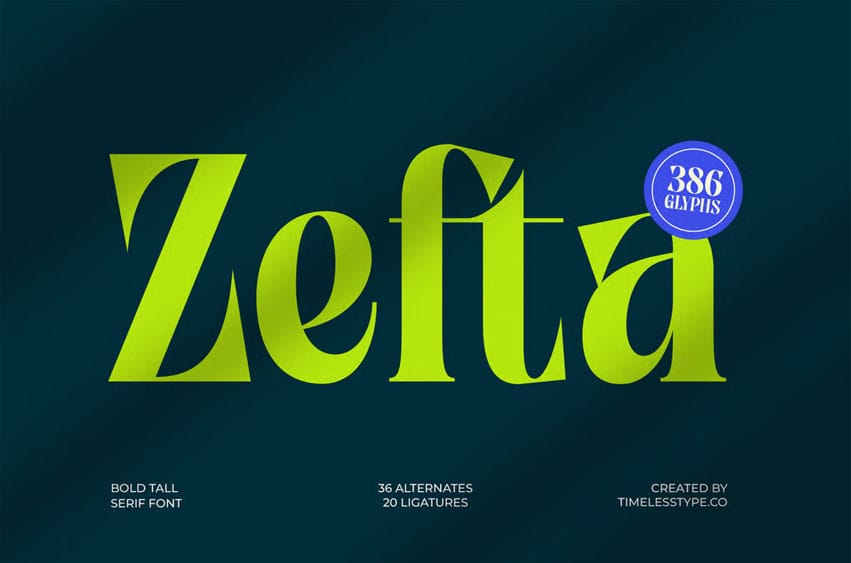
Zefta Font is a bold tall serif display font with sharp modern edges, high contrast strokes, and an elegant editorial silhouette. Its elongated proportions and sculpted details give it a luxurious and contemporary appearance—perfect for branding, magazine titles, premium packaging, posters, logos, and high-end visual identity projects. Zefta brings a confident, artistic, and striking presence to any design.
With 36 alternates, 20 ligatures, and a total of 386 glyphs, Zefta offers powerful creative flexibility for building custom wordmarks, expressive headlines, refined monograms, and sophisticated typographic compositions. Its polished curves, dramatic verticality, and modern serif sophistication make it an exceptional choice for premium, stylish, and visually captivating design applications.